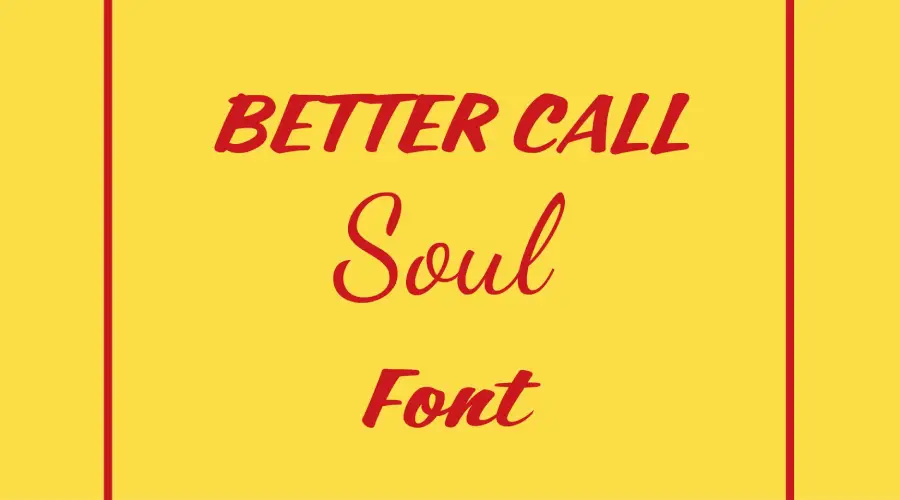
Better Call Saul Font
Better Call Saul font is used to create the Better Call Saul logo. Better Call Saul is a famous American legal crime drama series. It is a prequel to “Breaking Bad,” following the story of lawyer James McGill, who later becomes Saul Goodman. He is a struggling lawyer and former con artist, the morally dubious lawyer representing Walter White and other criminals in Breaking Bad.
The show’s logo, which appears in the opening credits and promotional materials, features two different fonts for the title “Better Call Saul.” “Better Call” is written in a casual script font called Script1 Script Casual, while “Saul” is written in a brush font similar to Dancing Script. Both of these fonts are available for free download.
Why Do The Fonts Work Well For The Show?
The fonts used in the logo of Better Call Saul reflect the personality and evolution of the main character, Jimmy McGill/Saul Goodman. Script1 Script Casual is a font that mimics handwriting, with letters that bounce and change size slightly. It gives a sense of informality, spontaneity, and friendliness, which are some of the traits Jimmy uses to charm his clients and colleagues.
Dancing Script is a font that resembles a brush pen, with letters with thick and thin strokes and a lively bouncing effect. It gives a sense of elegance, sophistication, and flair, which are some of the qualities Saul aspires to have as a successful lawyer.